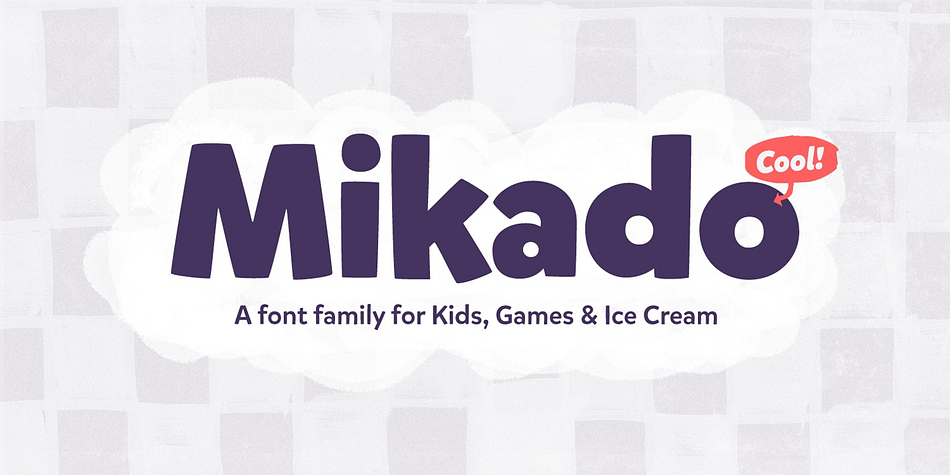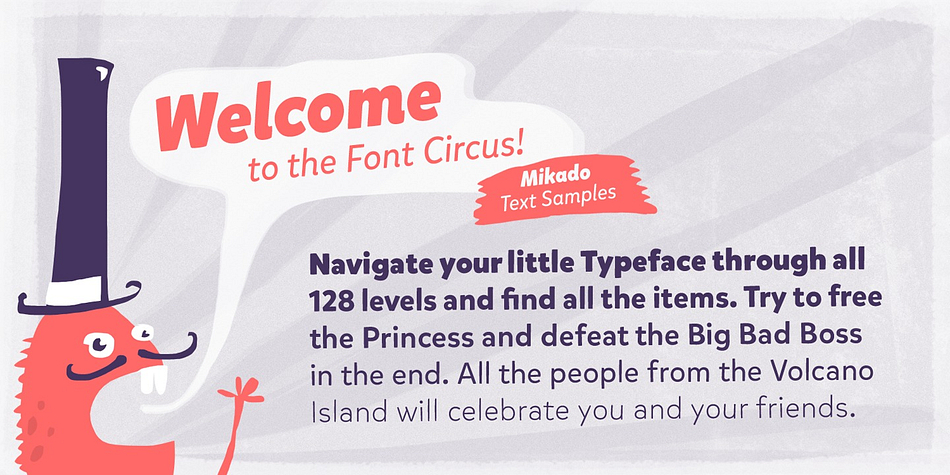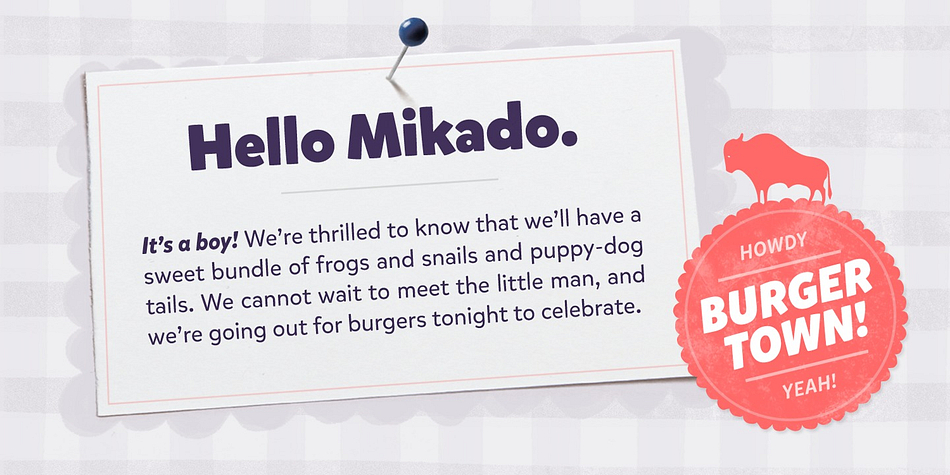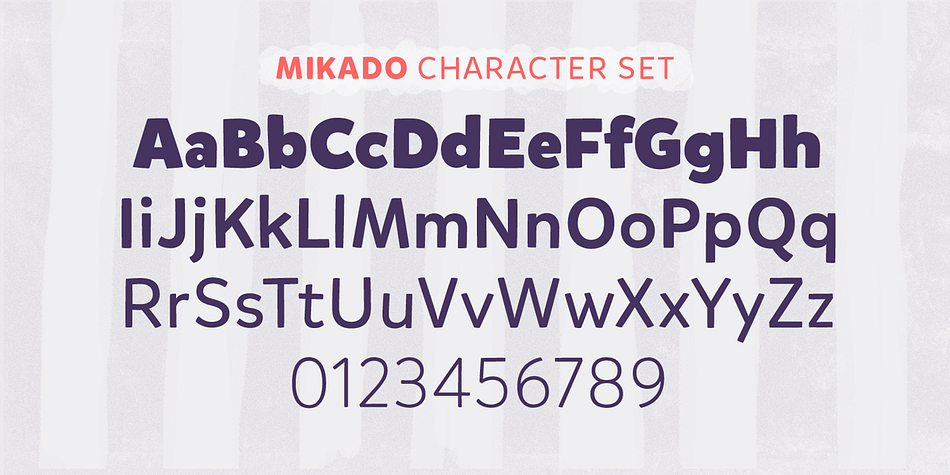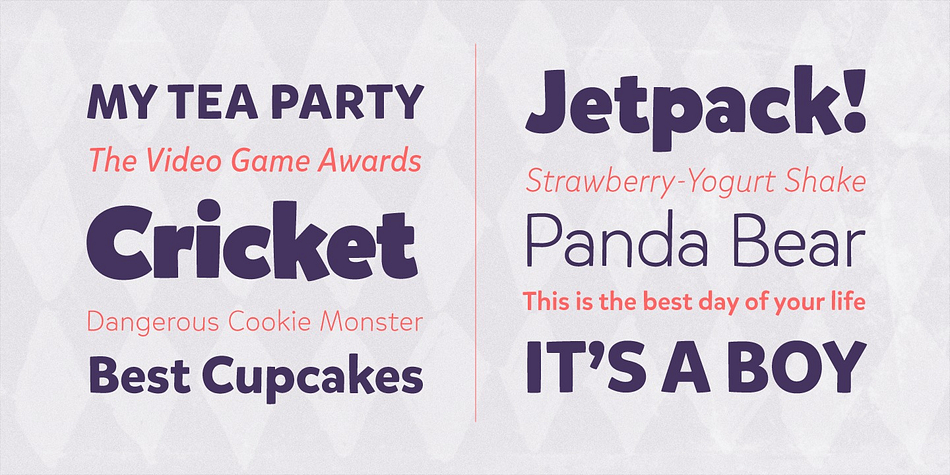
Designed by Hannes von Döhren, Mikado is a display sans font family. This typeface has twelve styles and was published by HVD Fonts.
Mikado is a friendly, casual type family designed by Hannes von Döhren. It is intended to be used everywhere where a pleasant feeling should be conveyed: Games, Food, Service or Advertising. Mikado has a positive, kind of “out-of-the-box-appearance” in big sizes, but because of its straight architecture the fonts are also very legible in smaller sizes and longer texts - in print or on screen.
Mikado is equipped for complex, professional typography with alternate letters, ligatures, arrows, fractions and an extended character set to support Central and Eastern European as well as Western European Languages.